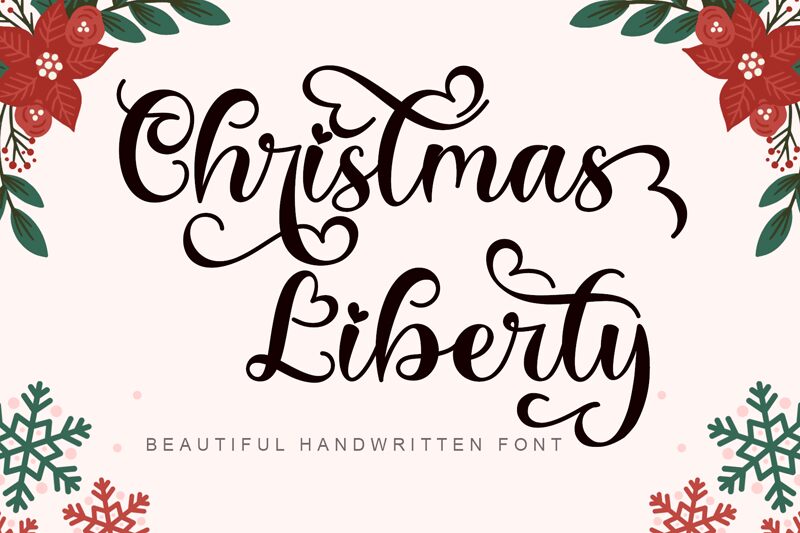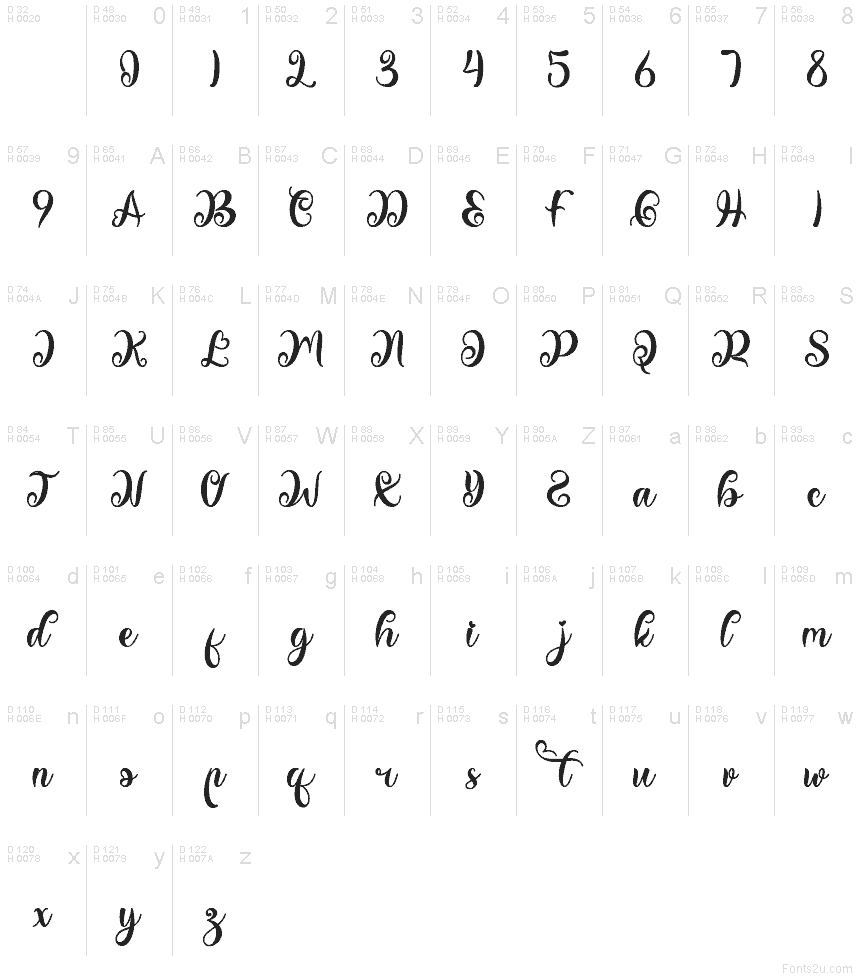
Christmas Liberty Demo
Christmas Liberty font by Yoga Letter is a free Christmas calligraphy typeface that wraps your layouts in that handwritten holiday magic. Its flowing script, looping swashes, and cozy, inky strokes feel like a note written on a gift tag beside a crackling fire. Letters connect with an easy rhythm, giving headlines a graceful sweep without feeling fussy or hard to read.
Using Christmas Liberty, this free font shines on greeting cards, gift tags, holiday invitations, festive social posts, mugs, and seasonal packaging. The lively curves add warmth and a hint of whimsy, making simple messages feel special and personal. For a polished look, pair Christmas Liberty for titles with a clean sans serif in smaller text, and give it plenty of breathing room so the curls and flourishes can really sing.